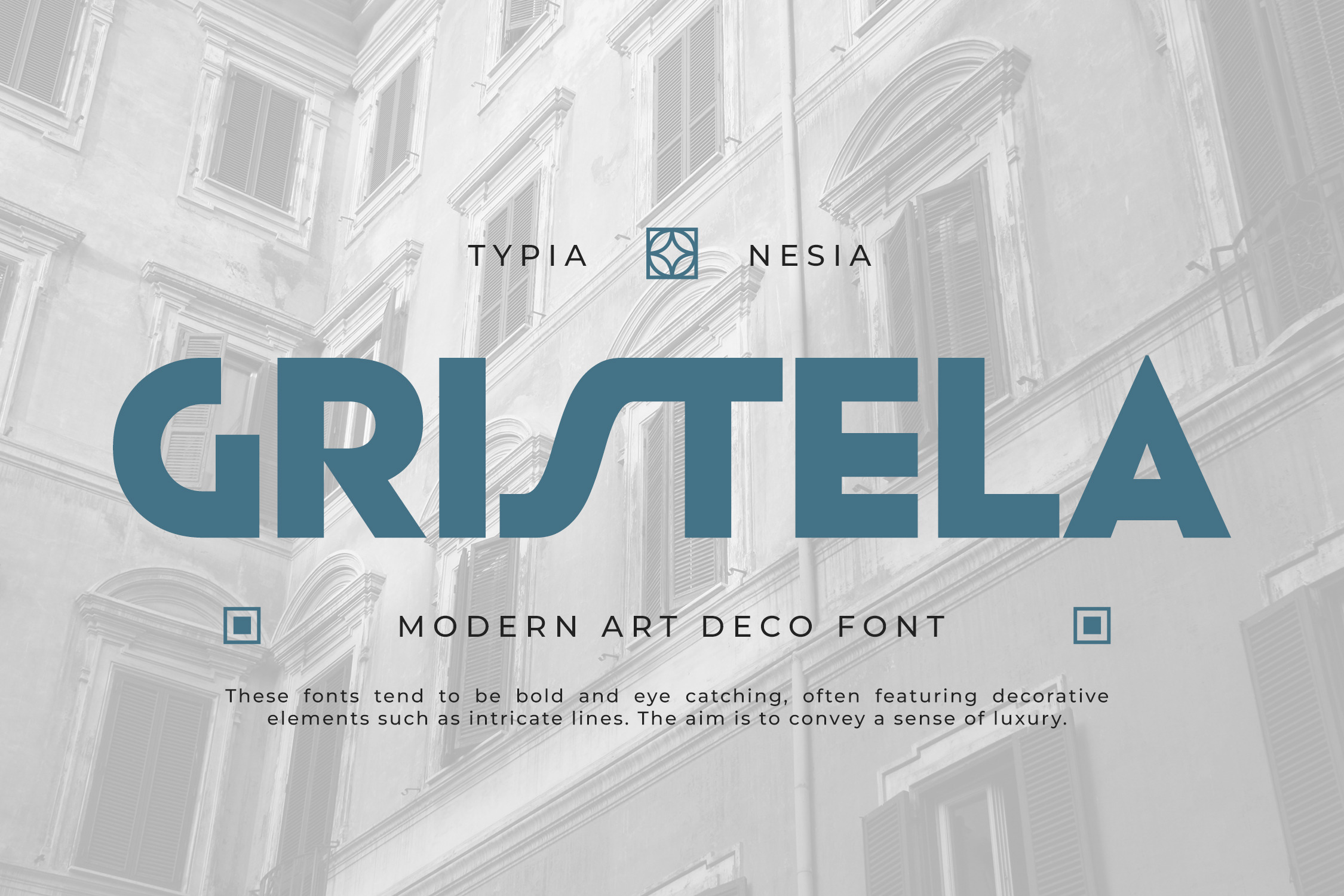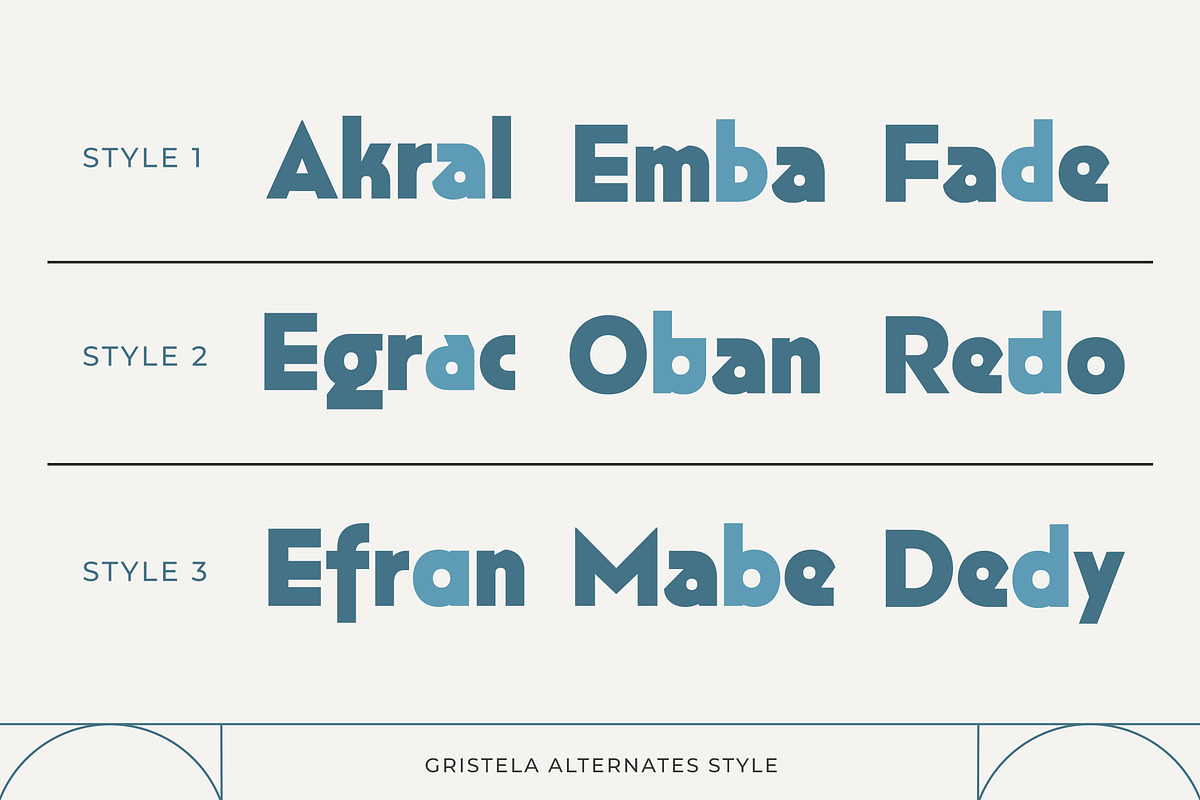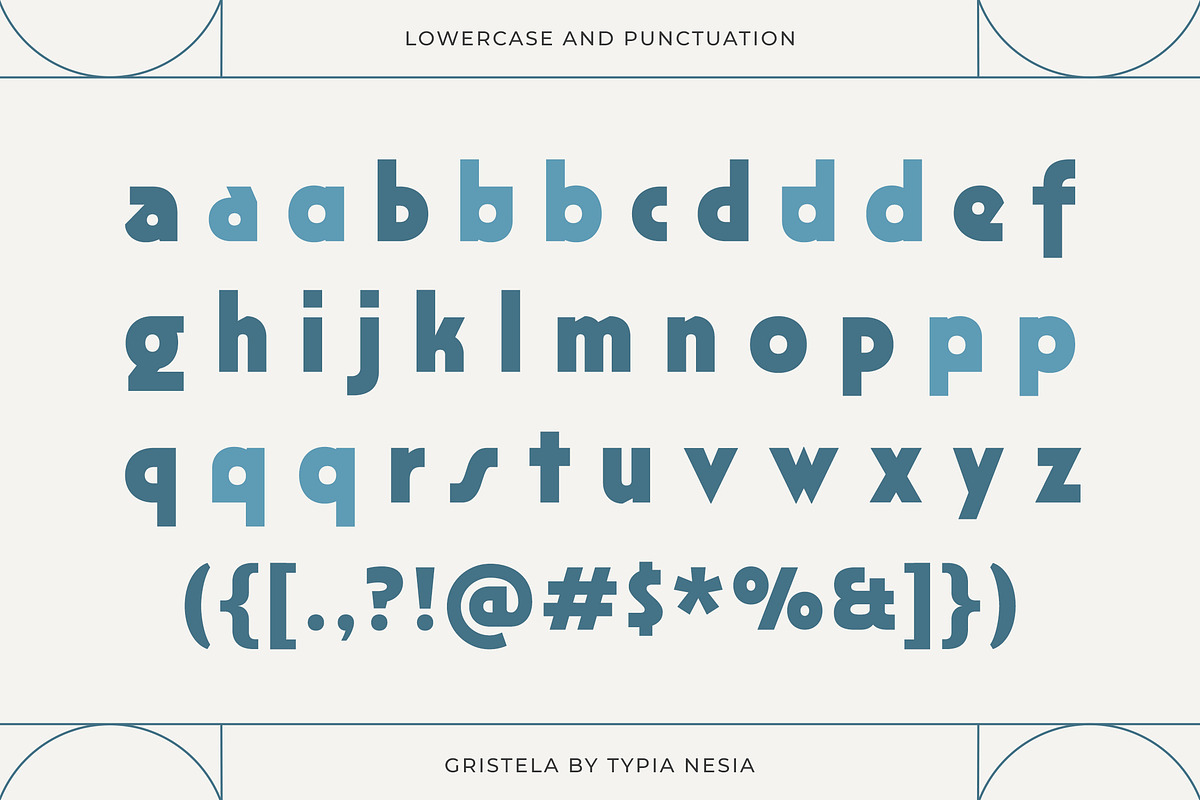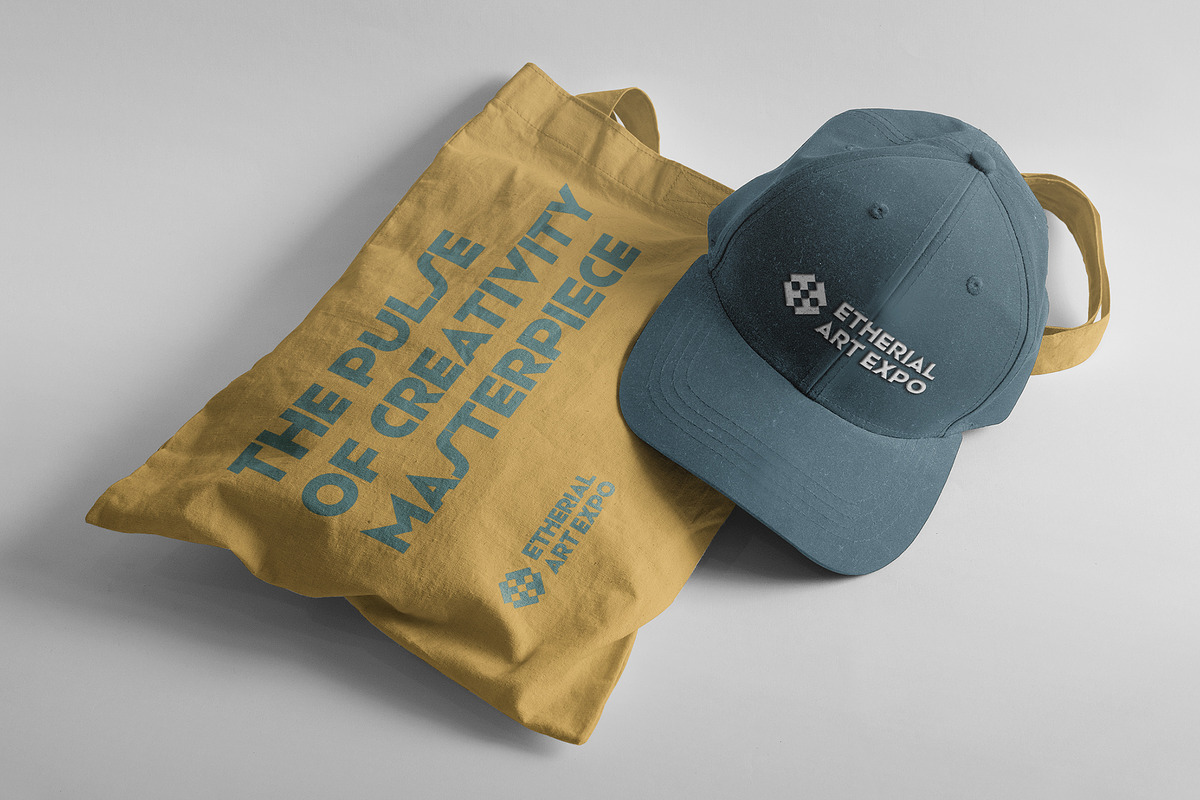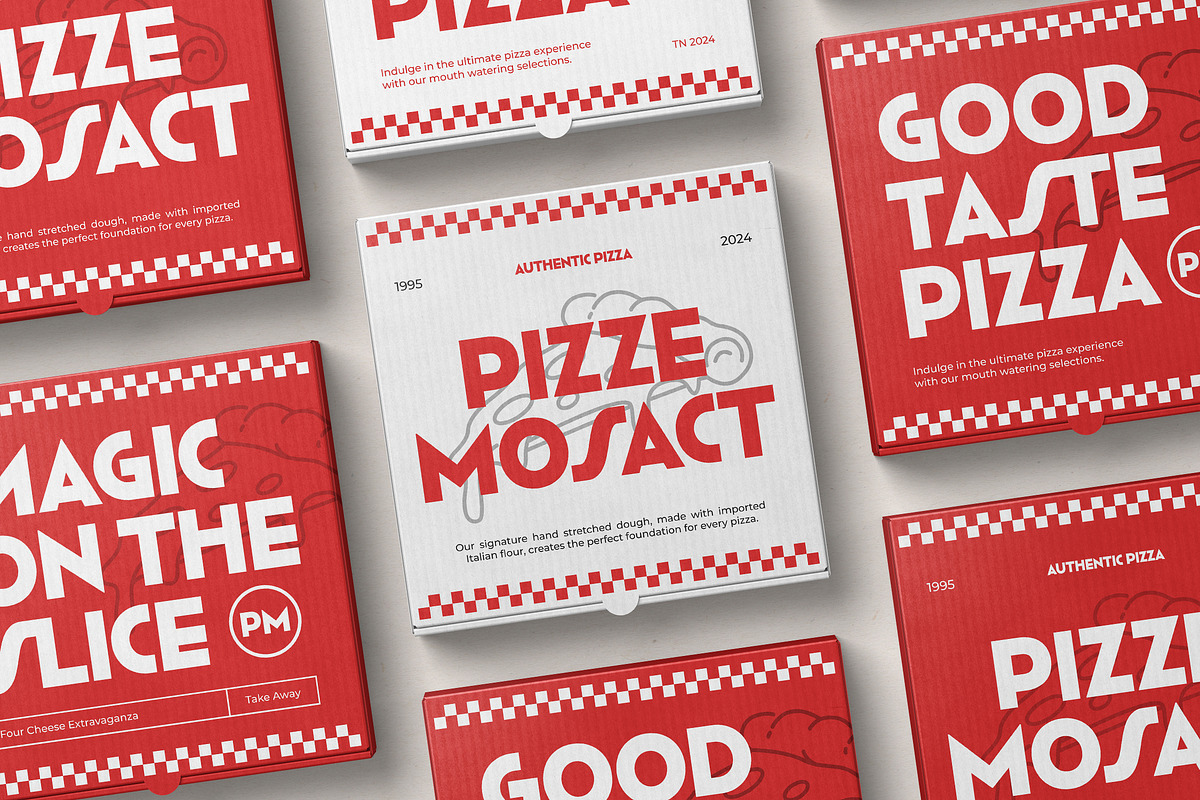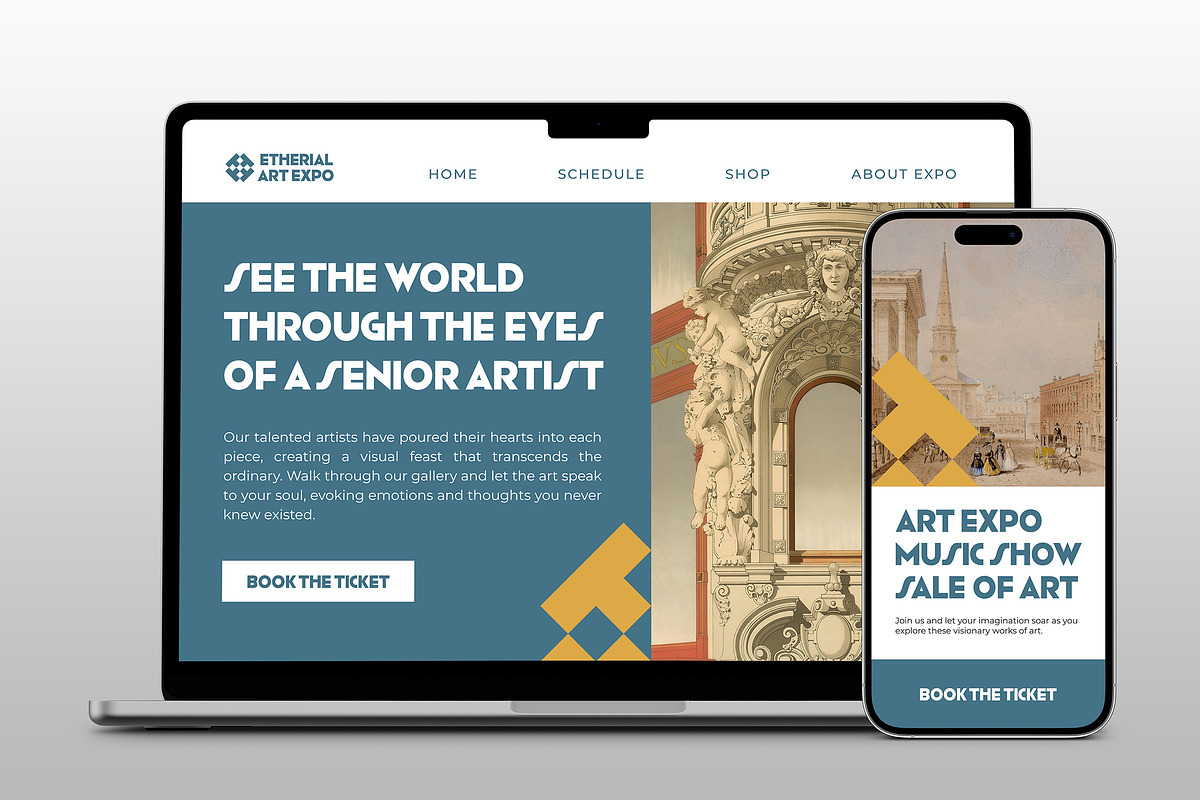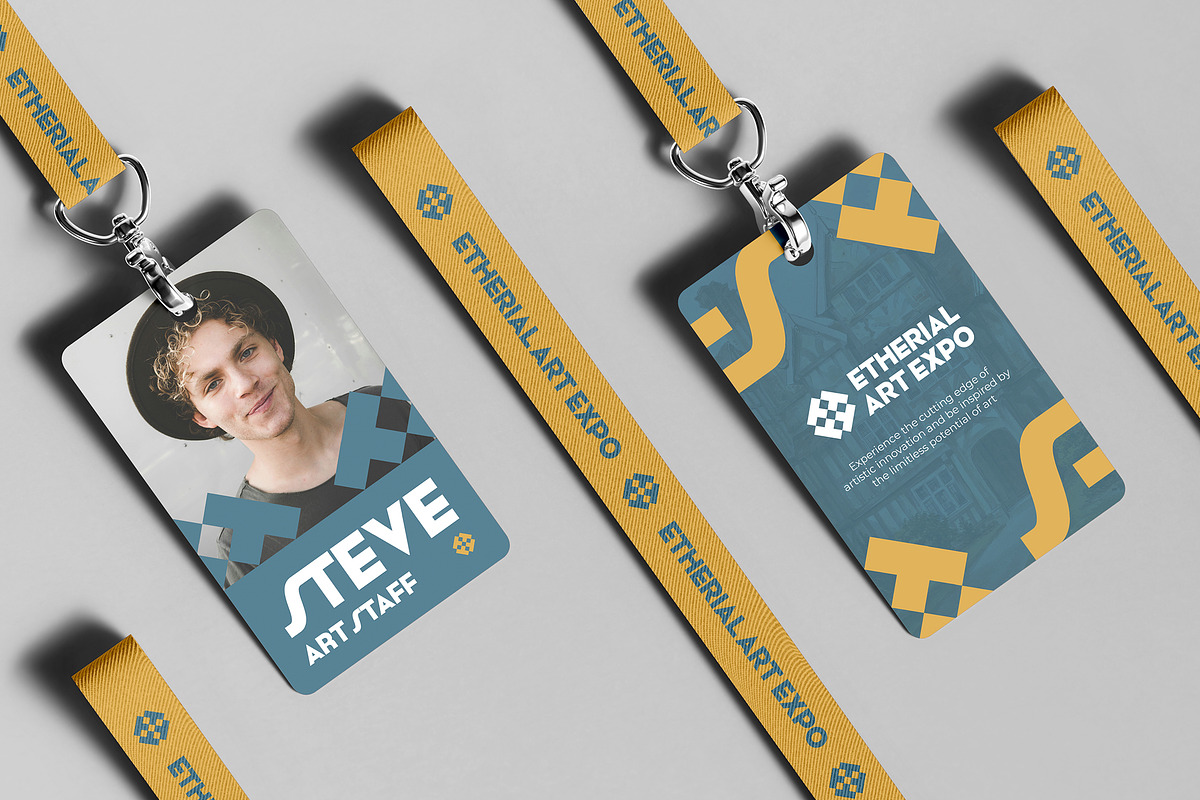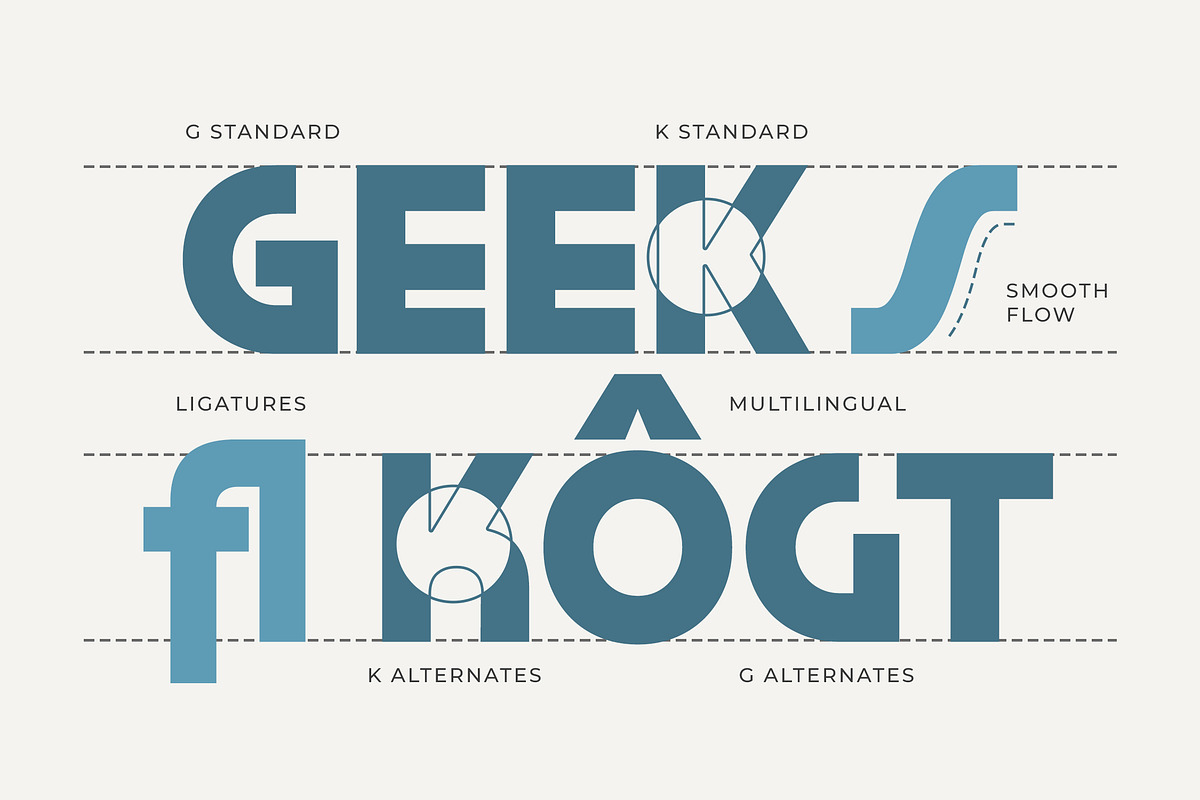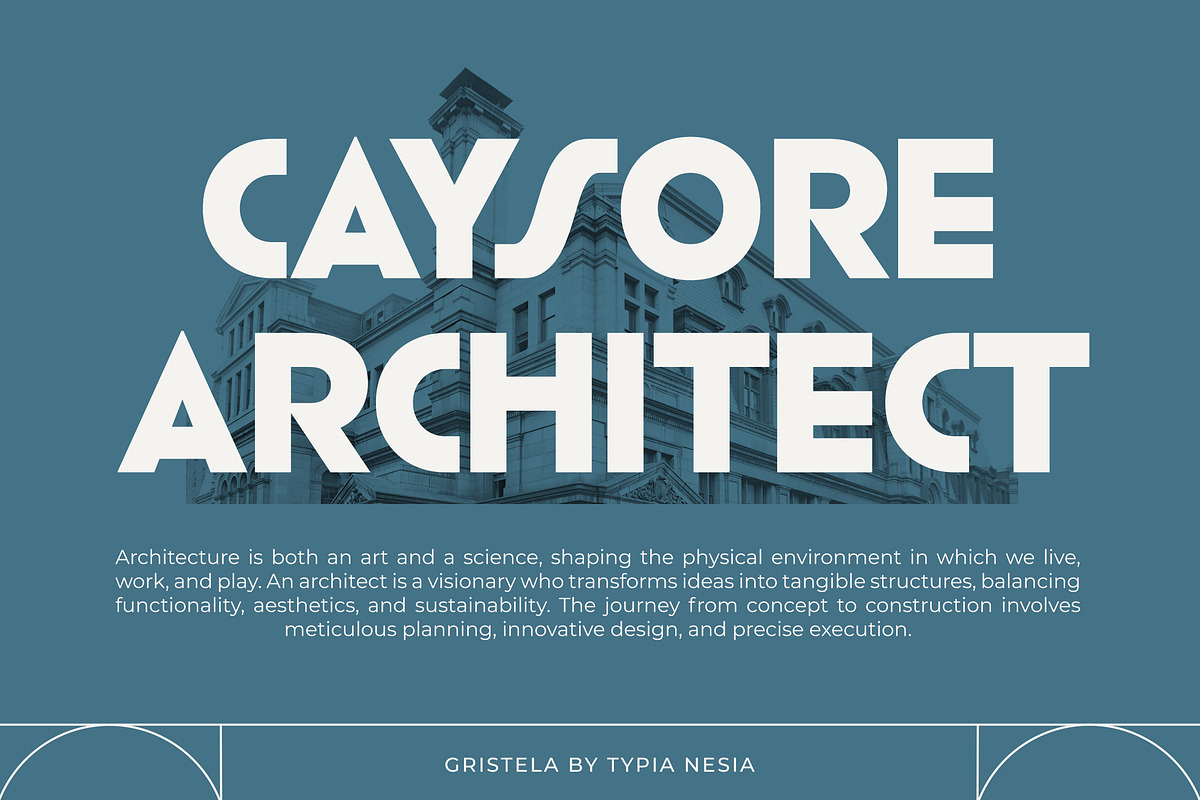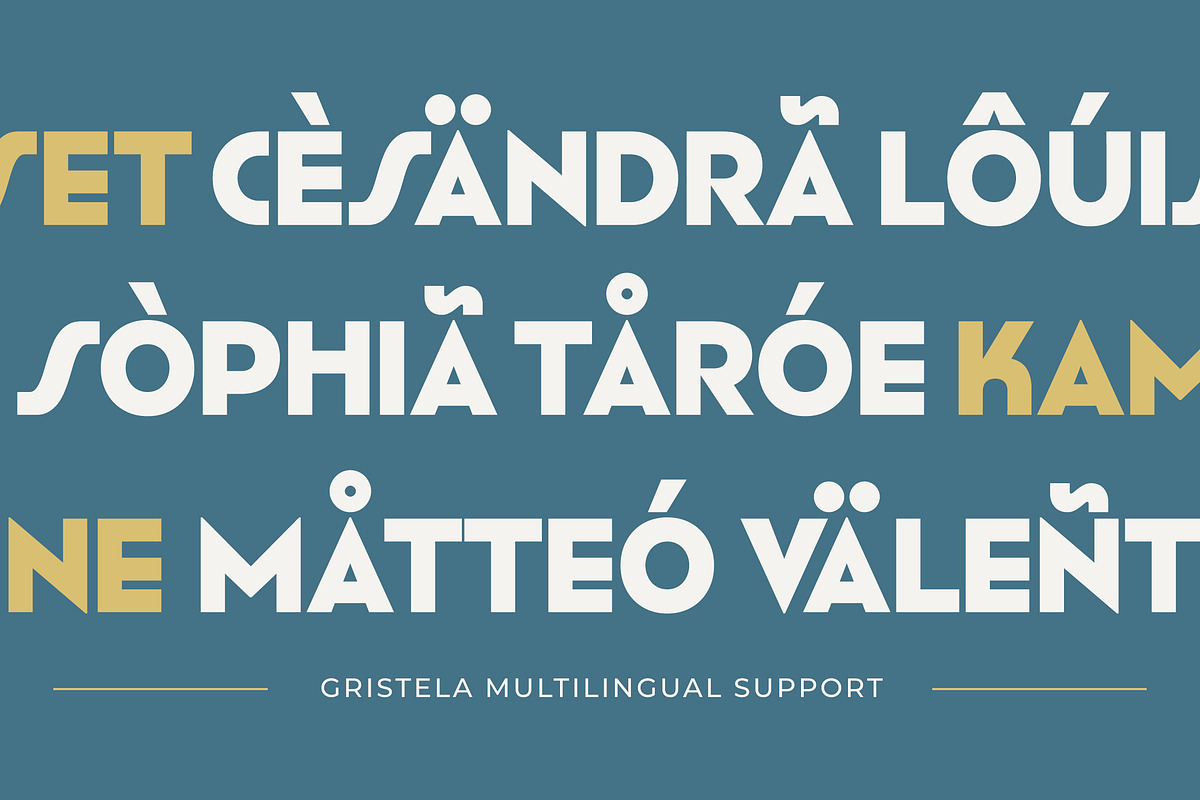
Gristela - Modern Art Deco Font
Gristela - Modern Art Deco Font - Bold Ligature Contemporary Display Sans Serif Font.
Gristela is a Modern Art Deco Font that combines the boldness of the Art Deco movement with contemporary design elements. Its stylish and geometric design brings a touch of Modern and sophistication to any project, such as branding, packaging, editorial design, event invitations, posters, product advertisements and any project to require a touch modern and bold, Its versatile style ensures it looks stunning in both print and digital formats, providing a polished and contemporary look to logos, headlines, and body text. Gristela is rich in features to support your creative needs. It includes ligatures for smooth character combinations, a full set of uppercase and lowercase letters, punctuation, numerals, and alternate characters. Additionally, it offers extensive multilingual support, making it a versatile choice for global applications. Crafted with meticulous attention to detail, Gristela blends the geometry of Art Deco with modern typographic techniques, making it a reliable choice for designers looking to infuse their work with bold and sophistication.